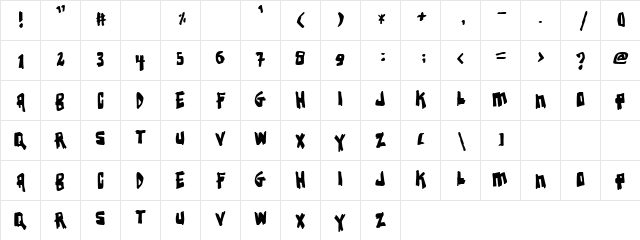
Complete Heavy Tiffany Regular glyph index. Displaying only characters natively supported by Heavy Tiffany Regular font.
Heavy Tiffany is a composed and adaptable typeface that performs quietly and consistently across a wide range of design contexts.